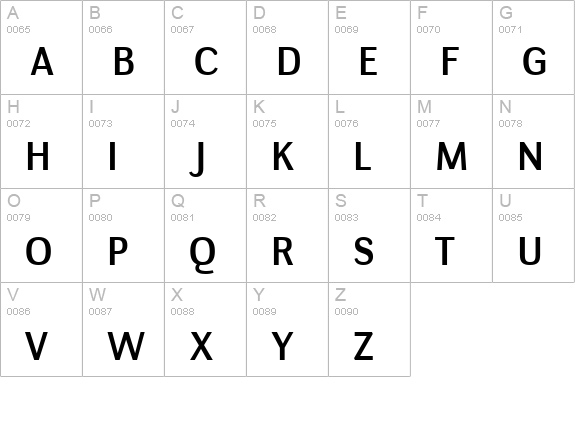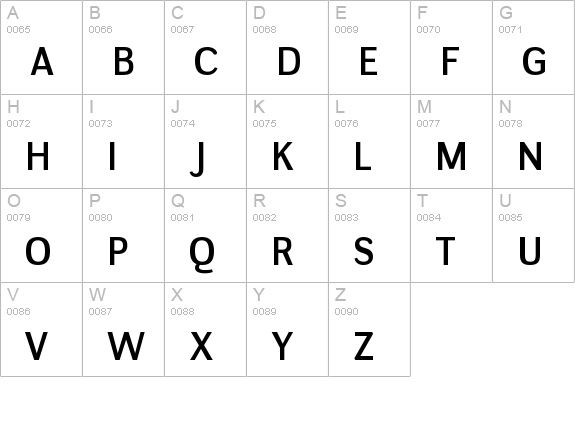
Negotiate Free Font Details
Introducing Negotiate Free font, a versatile and modern typeface designed for all your creative projects. This elegant font exudes a sense of sophistication and professionalism, making it perfect for a wide range of design applications. With its clean lines and stylish curves, Negotiate Free font adds a touch of elegance to any design project. The best part? Negotiate Free font is available to download for free at FontsMarket.com. This means you can easily access and use this stunning font in your projects without any cost. Whether you're working on a branding project, website design, or any other creative endeavor, Negotiate Free font is sure to elevate your work with its unique charm and timeless appeal. Don't miss out on the opportunity to enhance your designs with Negotiate Free font. Download it today from FontsMarket.com and start creating beautiful and engaging designs that stand out from the crowd.